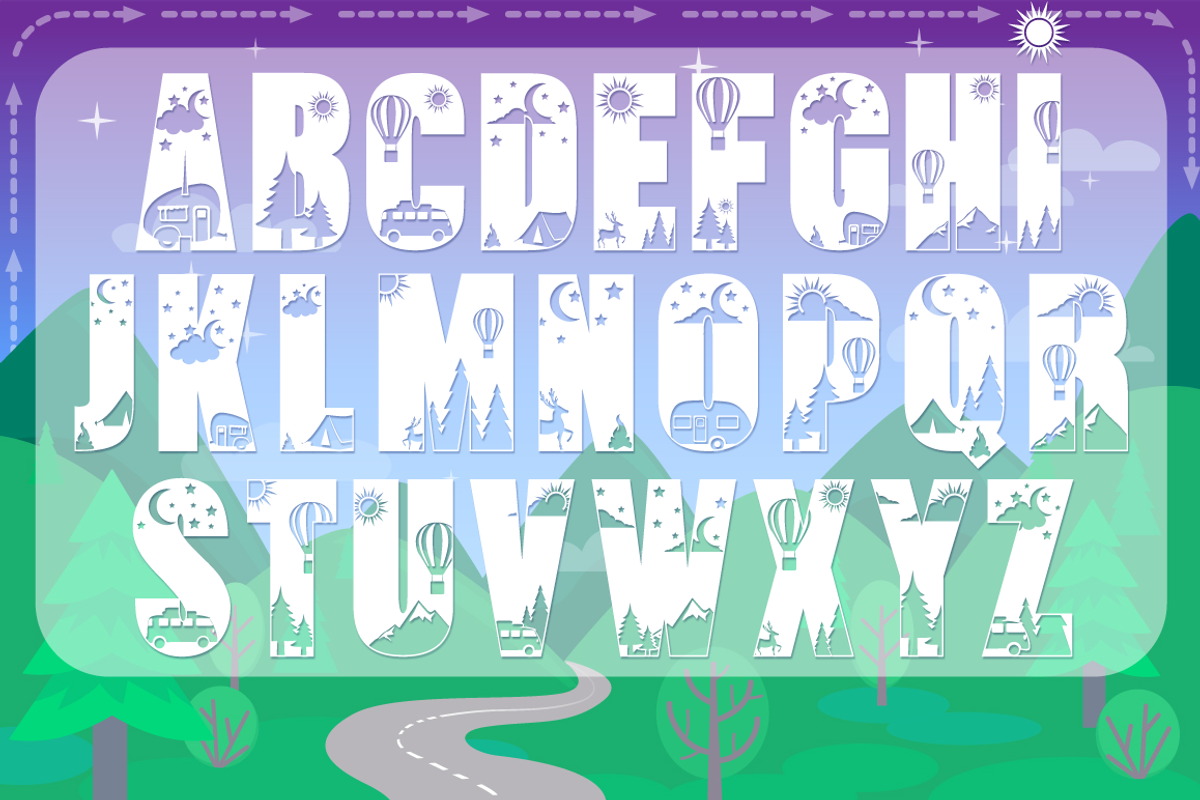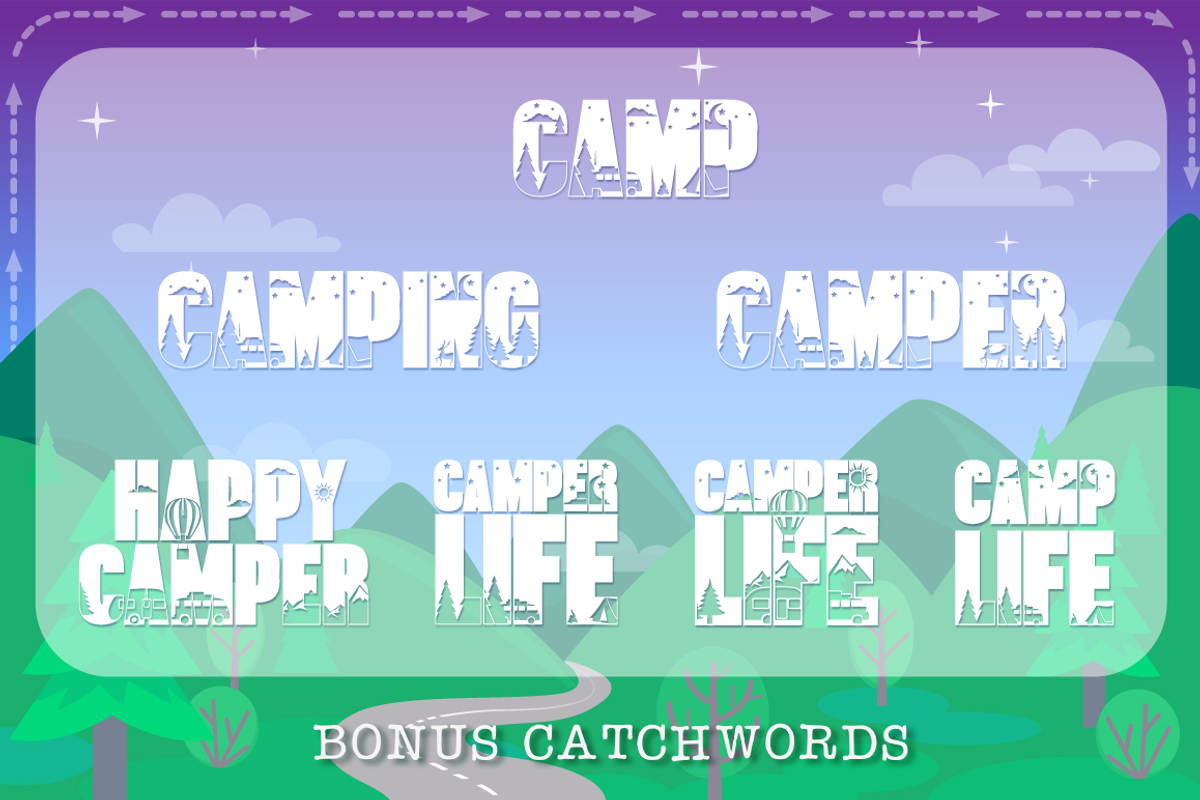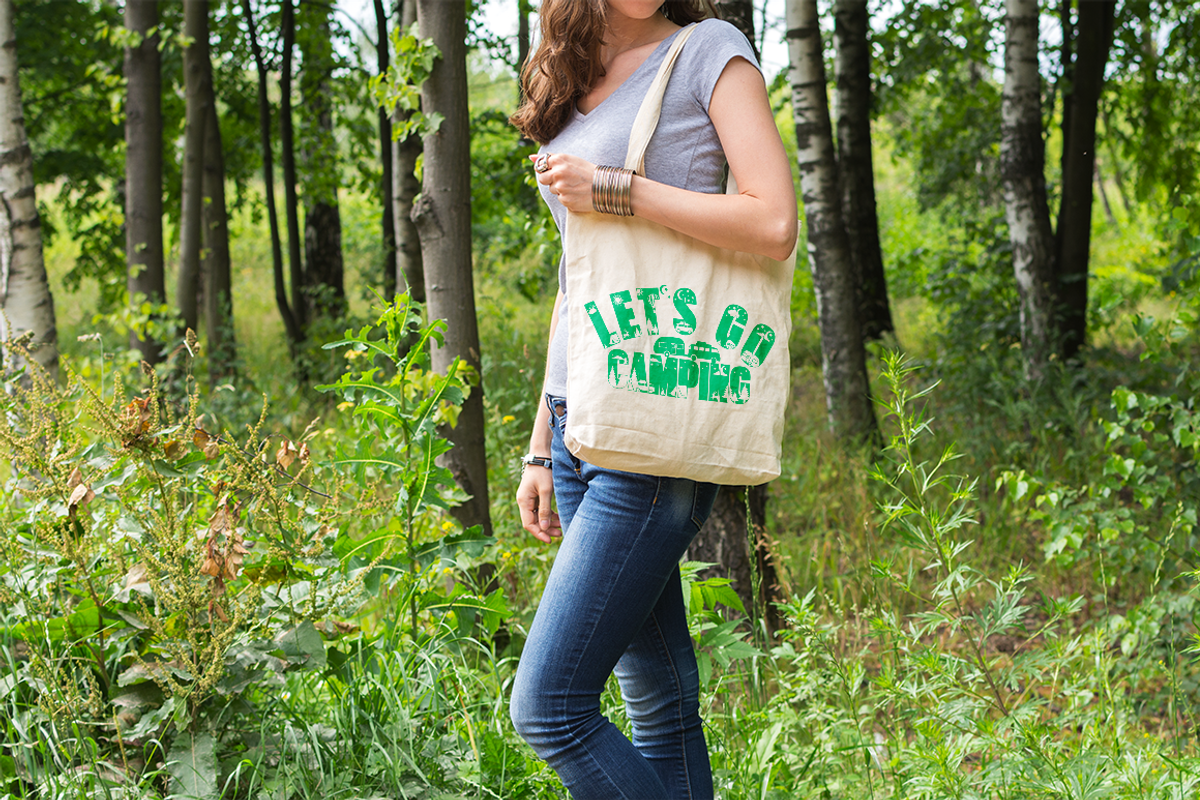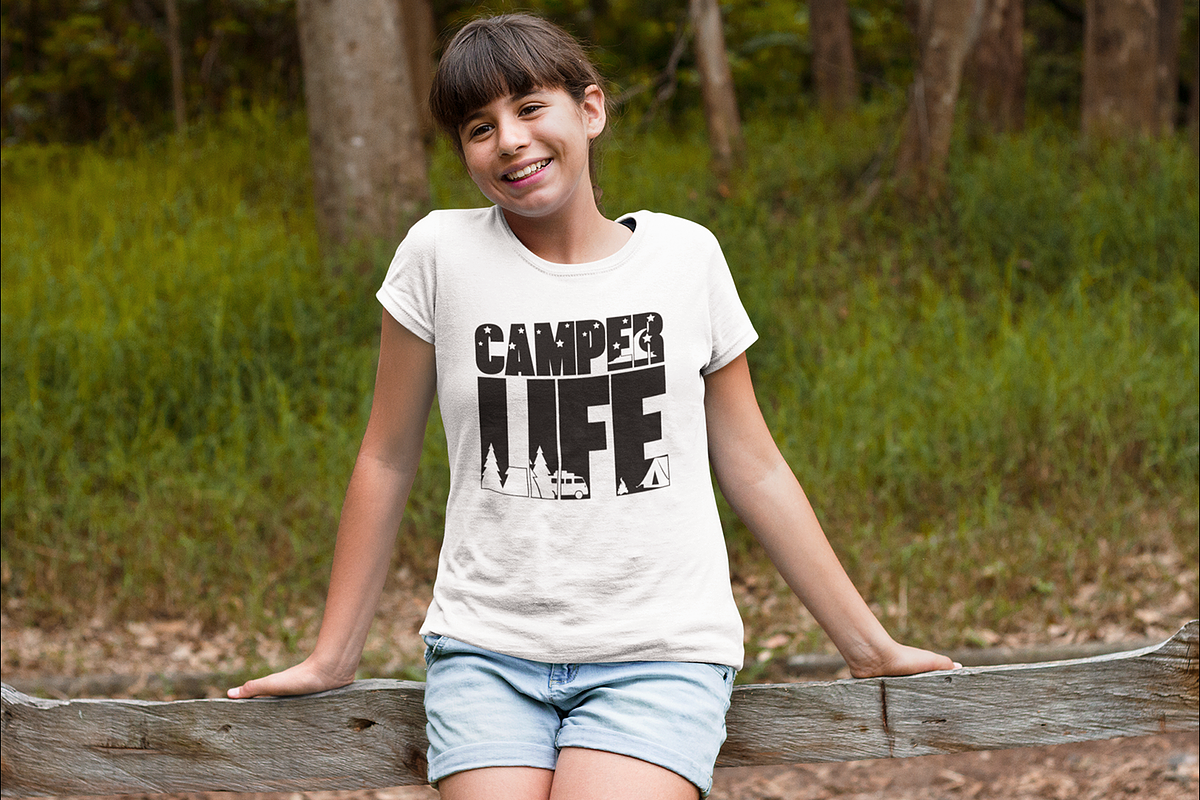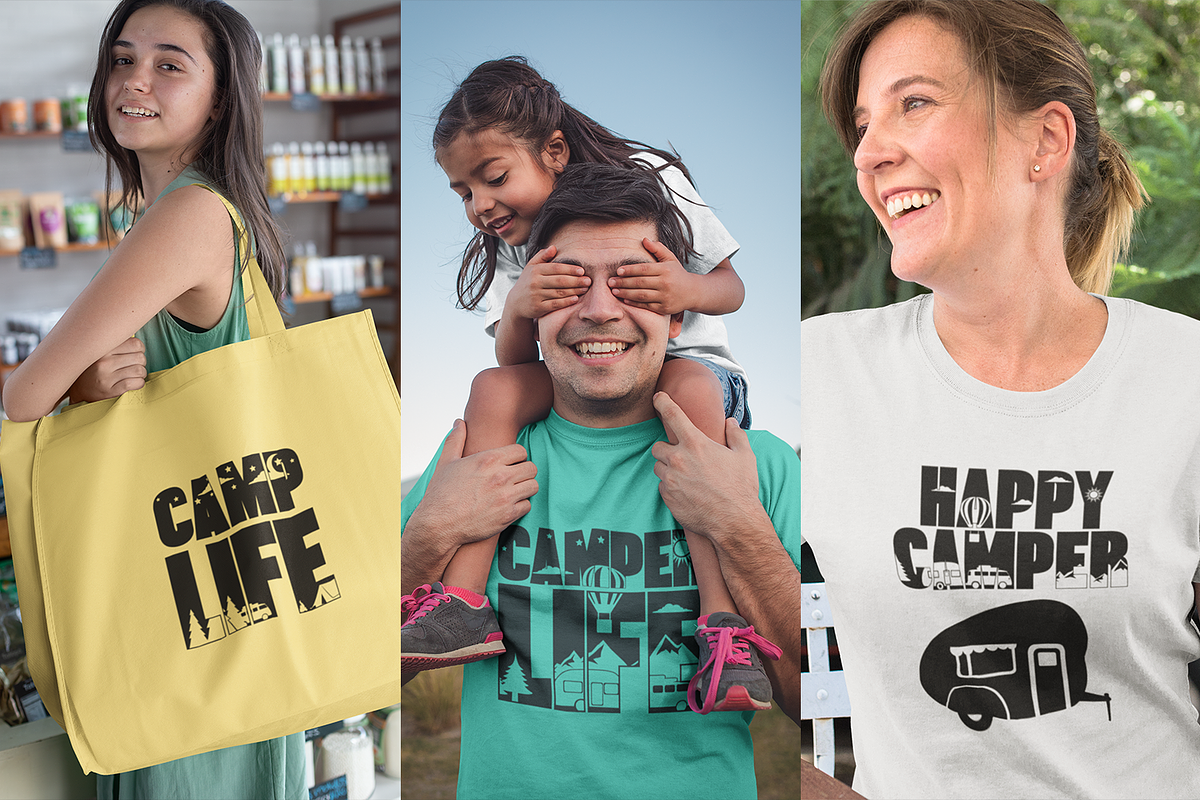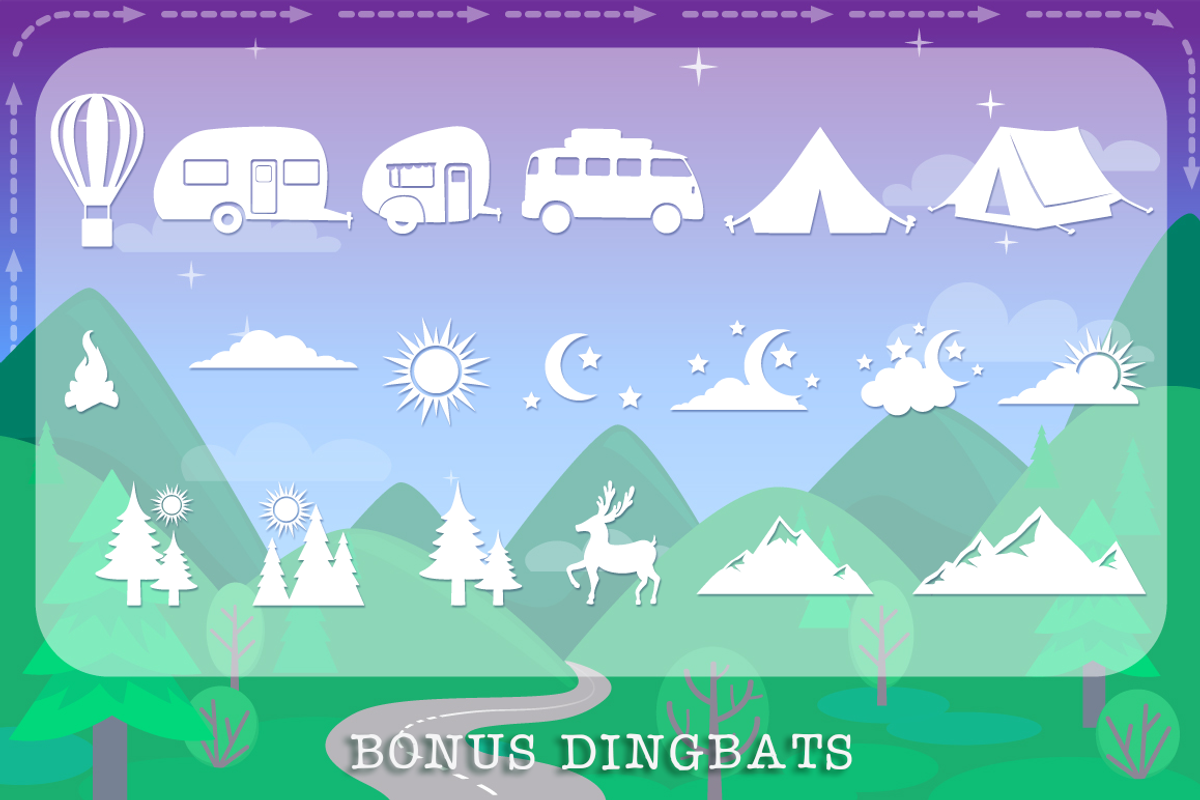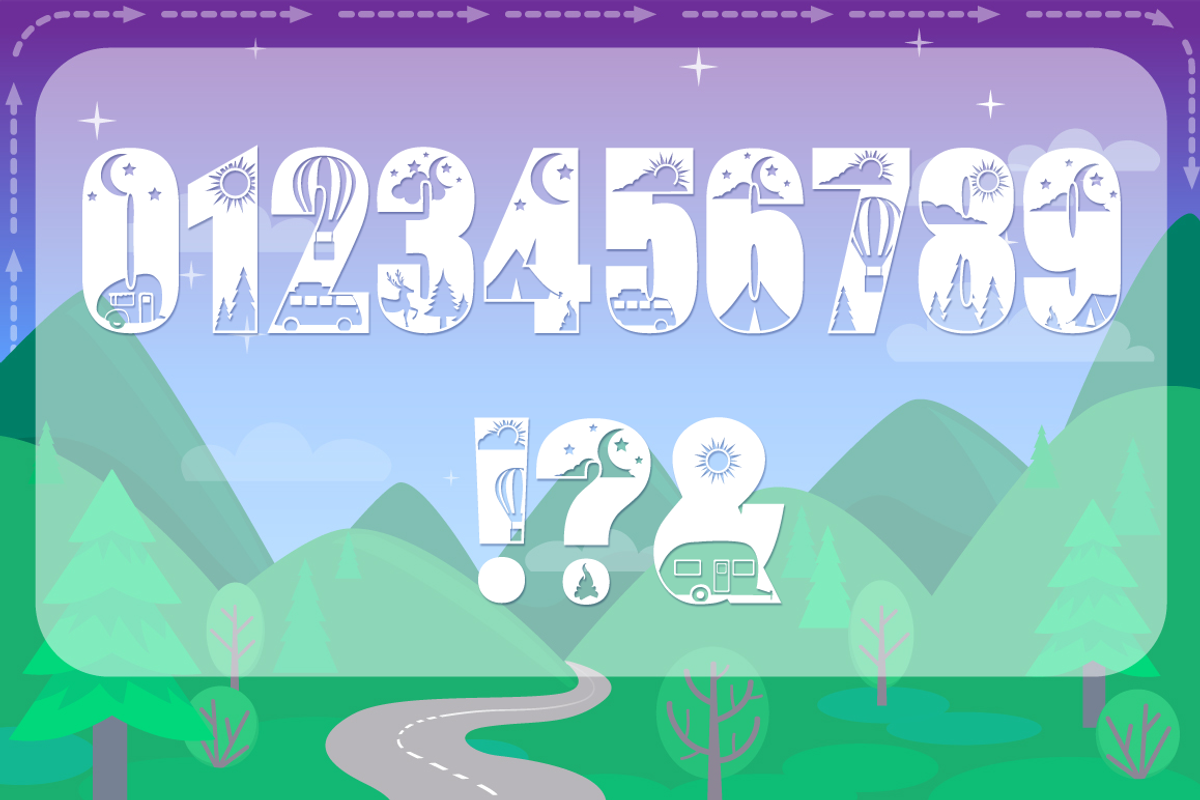
Camping Font - Let's Go Camping
I started working on this font many months ago, and completely forgot about it until a few days ago when I realized the camping season is here. This font is excellent for your camping and hiking projects. The Let's Go Hiking Extras font comes with 7 ready-to-go catchwords and a ton of camping-related silhouettes!
The font is created from scratch, using as little points as possible to ensure you get the best results with minimum difficulty. Optimized for Crafters with Cricut Design Space, Silhouette Studio, ScanNCut, and all major brands. The cutting takes much less time because the number of points in each letter is reduced to a minimum!